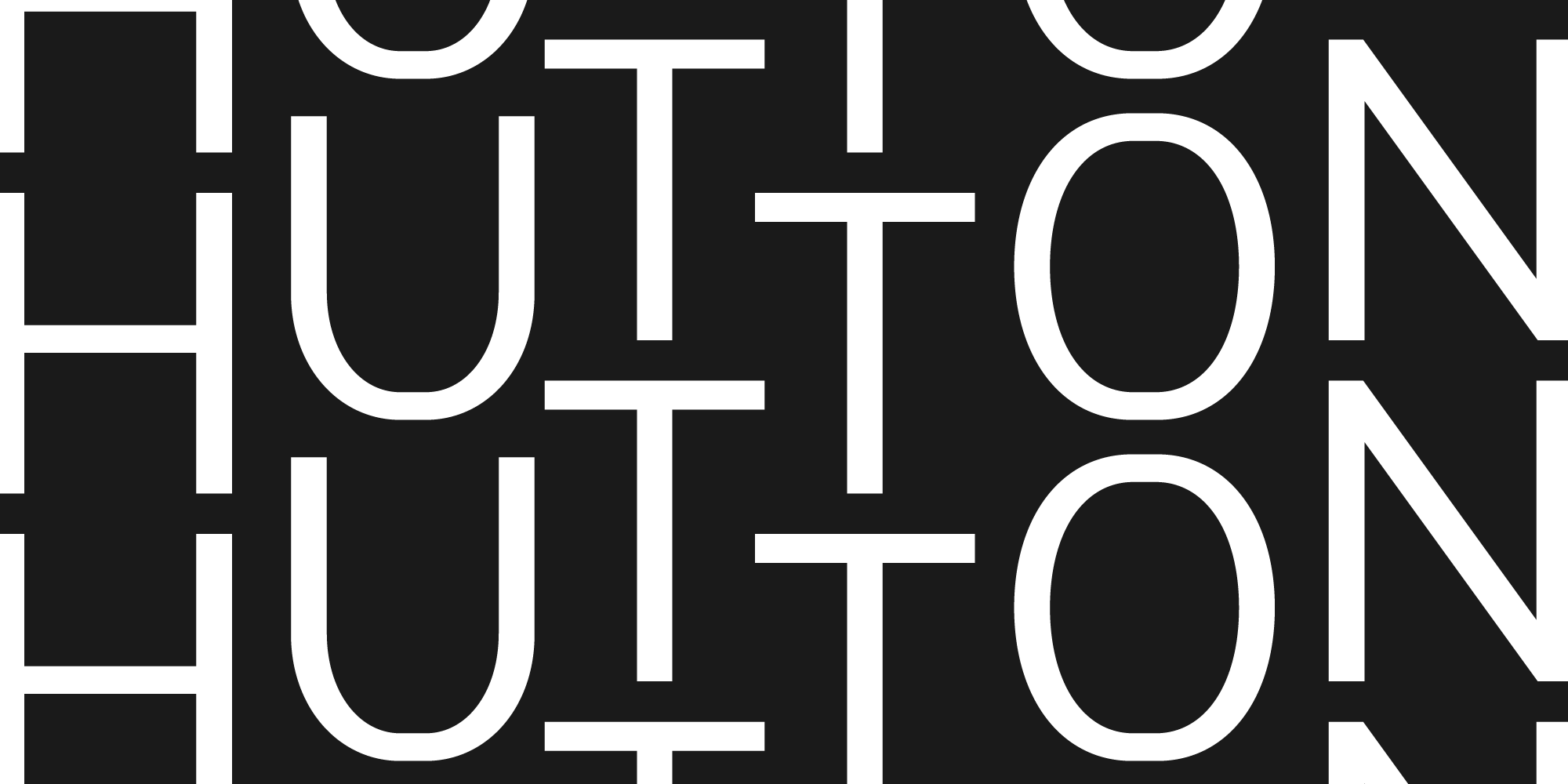
Hutton Font is perfect for British heritage brands, traditional English pubs, countryside tourism materials, London hospitality venues, academic institutions, legal firms, government communications, financial services, and any project requiring typography with distinguished English character and timeless institutional elegance.
What makes Hutton Font exciting is its quintessential British refinement that captures the essence of English institutional tradition and scholarly excellence with letterforms that embody centuries of academic heritage and professional distinction. This distinguished typeface reflects the understated elegance of British design philosophy with balanced proportions and classical details that convey authority, reliability, and the enduring values of English cultural institutions. The font's institutional character and British sophistication make it perfect for organizations that represent tradition, expertise, and the highest standards of professional excellence.
The Hutton Font family includes regular and bold weights, featuring complete uppercase and lowercase alphabets, numerals, punctuation marks, and traditional British typographic elements. The font maintains consistent institutional elegance throughout all weights while ensuring excellent readability for both authoritative headlines and detailed professional documentation in academic and corporate contexts.
Whether you're designing for British universities, creating traditional hospitality branding, or developing professional services marketing with authentic English aesthetics, Hutton Font Free Download delivers unmatched British sophistication and institutional authority to your projects. This distinguished typeface transforms ordinary text into expressions of professional excellence that honor the finest traditions of British institutional design and scholarly communication. The font's authoritative character makes it ideal for law firms, educational institutions, and heritage organizations. Download this exceptional font today and bring the timeless dignity of British institutional elegance to your design projects with authentic English sophistication and professional distinction.